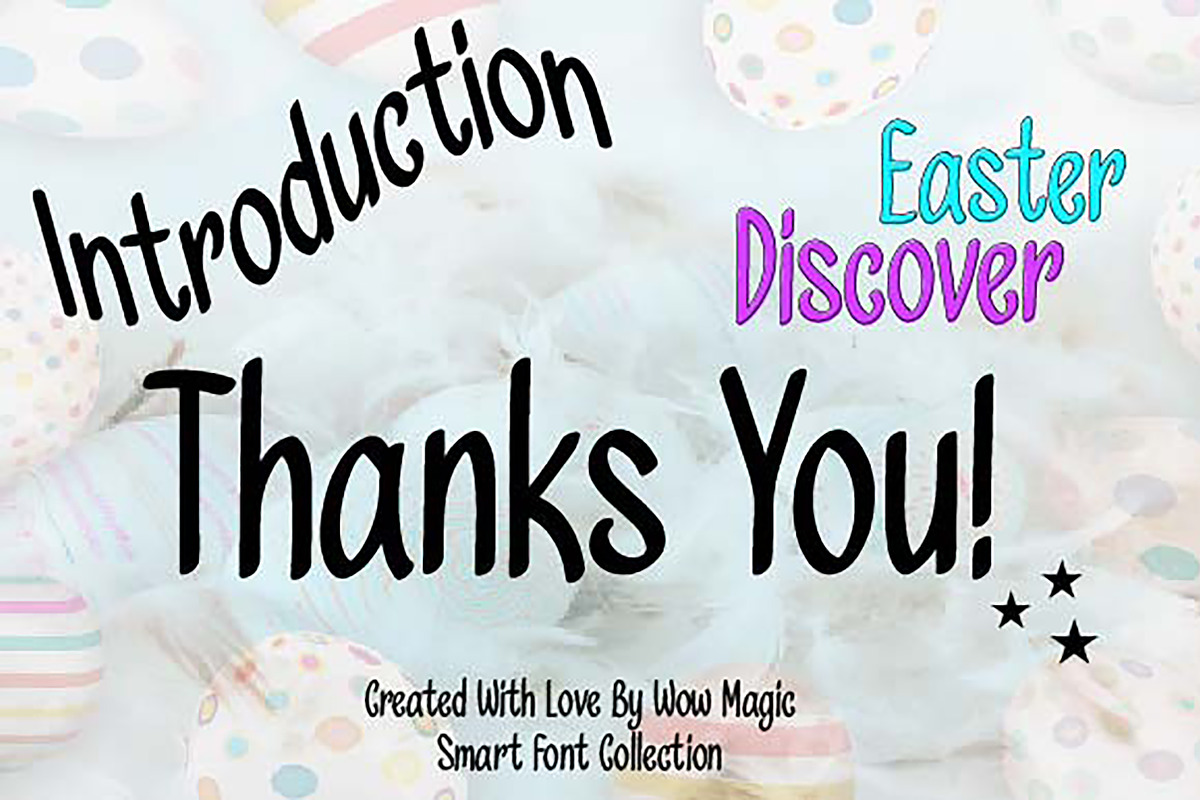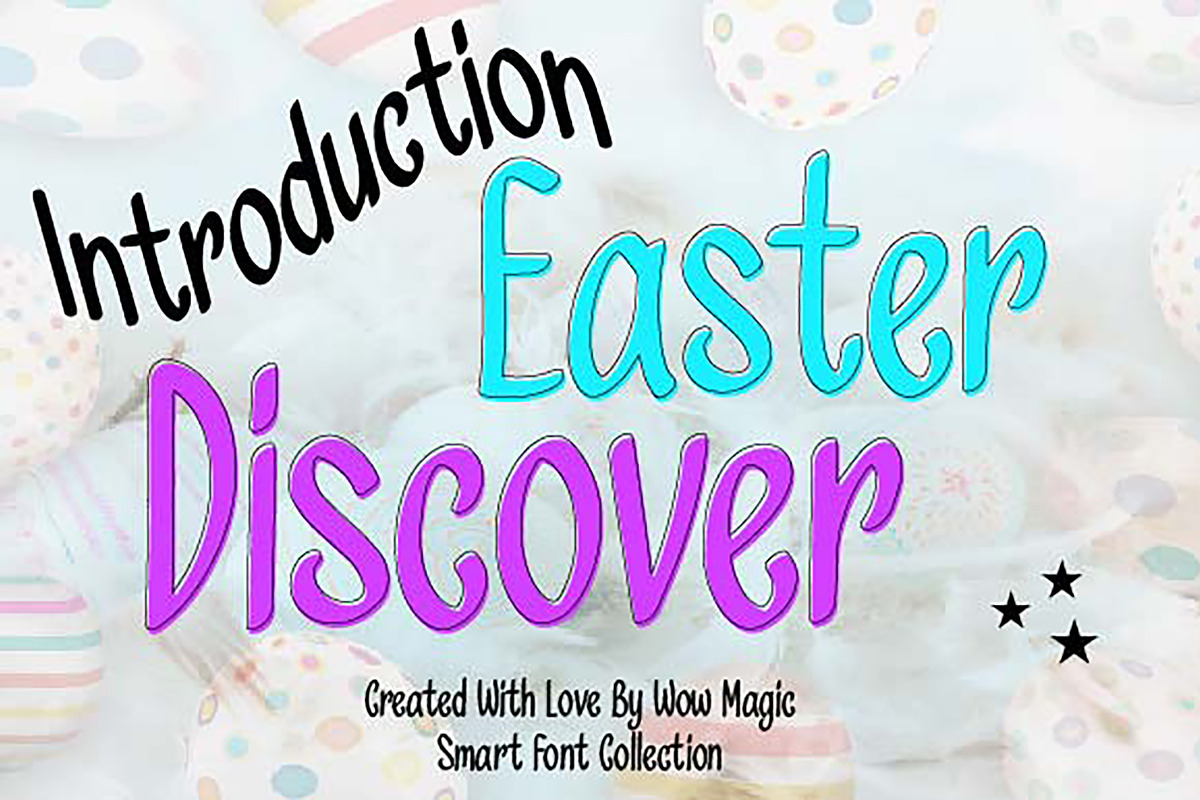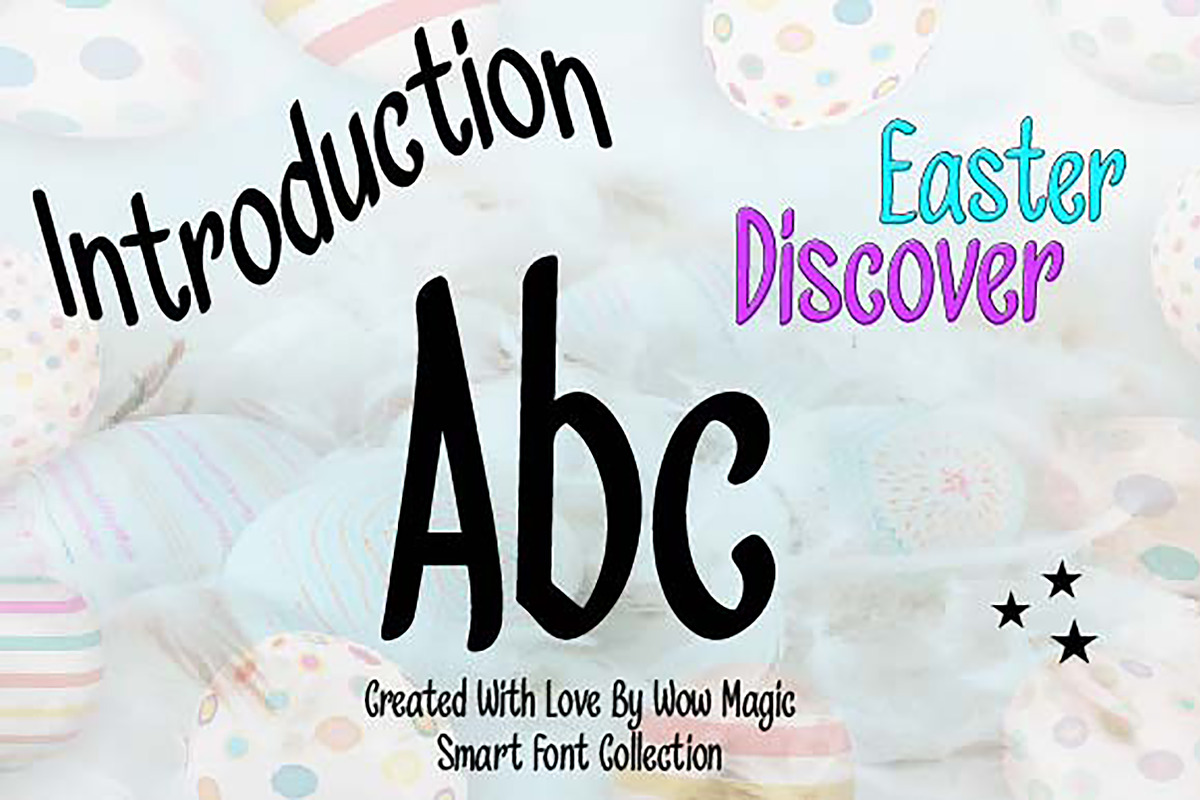
Easter Discover
Easter Discover – Playful Handwritten Display Font
Easter Discover is a playful handwritten display font with a cheerful, friendly, and whimsical personality. Inspired by festive spring vibes, Easter celebrations, and casual hand-drawn lettering, this typeface brings a lighthearted charm that makes every design feel warm, fun, and inviting.
With its tall letterforms, smooth strokes, and natural handwritten flow, Easter Discover is perfect for seasonal branding, Easter-themed products, greeting cards, posters, packaging, invitations, social media graphics, and kids-related designs. Its clean yet playful style makes it easy to read while still feeling creative and full of character.
This font is ideal for designers who want a typeface that feels joyful, fresh, and full of handmade charm. Whether you're creating holiday promotions, cute branding, or spring-inspired visuals, Easter Discover adds a sweet and festive touch to every project.
Why You’ll Love It: Playful handwritten style Friendly and festive character Clean, tall, and readable letterforms Great for seasonal and cute designs Perfect for print and digital projects
Easter Discover is a playful handwritten display font with a cheerful and festive feel. Perfect for Easter designs, greeting cards, branding, packaging, invitations, and social media graphics, it adds a fun, friendly, and handmade touch to any project.